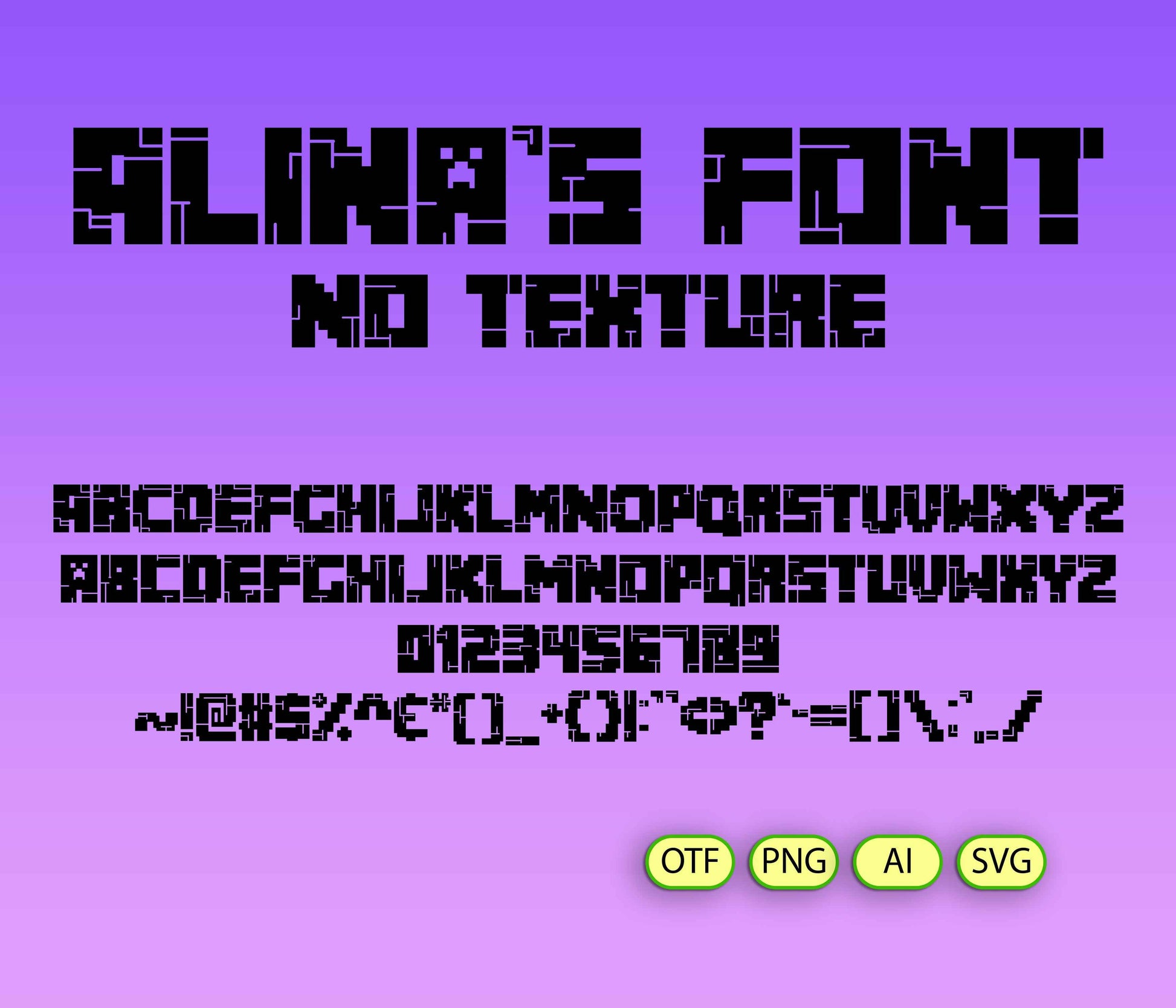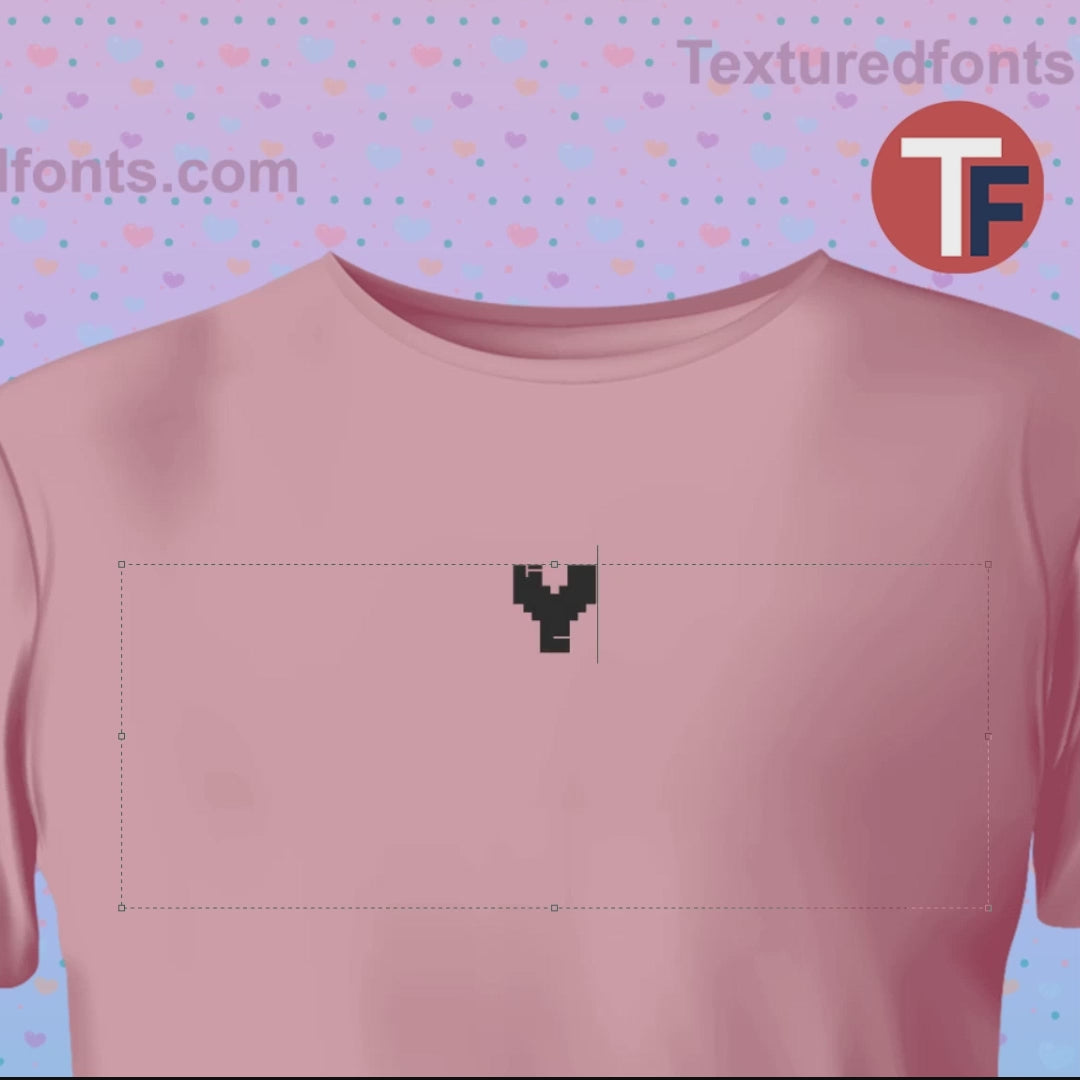
Blocky Adventure Font
Build Your Creative World with the Blocky Adventure Font
Immerse your designs in the pixelated world of Blocky Adventure with our Blocky Adventure-inspired font, crafted to echo the iconic, blocky aesthetic of a globally renowned sandbox game. Ideal for fans, gamers, and digital creators, this font infuses your projects with the spirit of creativity and adventure.
Our Blocky Adventure font mirrors the distinctive square-shaped, pixel-style typography that is instantly recognizable to players around the world. This unique and playful design is versatile enough for various applications:
- Gaming Content: Enhance UI/UX designs, create game guides, or produce promotional materials for gaming events.
- Educational Materials: Engage students in STEM-related educational content with a fun, familiar style.
- Event Promotion: Create standout invitations, banners, and signage for gaming tournaments or Blocky Adventure-themed parties.
- Digital Media: Enhance blogs, video channels, or social media content geared towards the gaming community.
- Merchandising: Design captivating apparel, accessories, and merchandise that appeal to a broad audience of Blocky Adventure enthusiasts.
Our Blocky Adventure font not only pays homage to the beloved game but also empowers you to bring its distinctive, blocky charm to your creative endeavors. Whether you’re crafting promotional materials, personalizing educational tools, or designing merchandise, this font lets you convey a sense of ingenuity and boundless possibility. Ready to transform your designs into a Blocky Adventure-inspired masterpiece? This font is your tool to build a visually engaging and uniquely creative world.